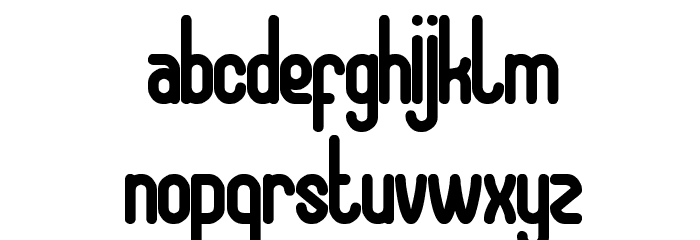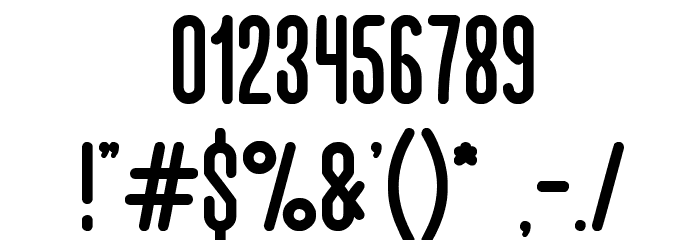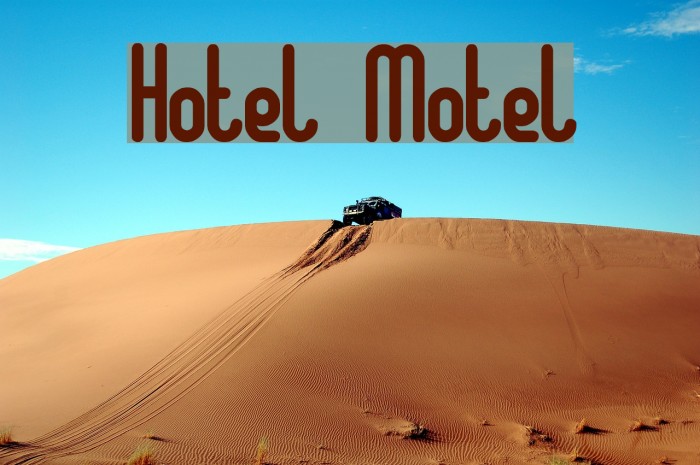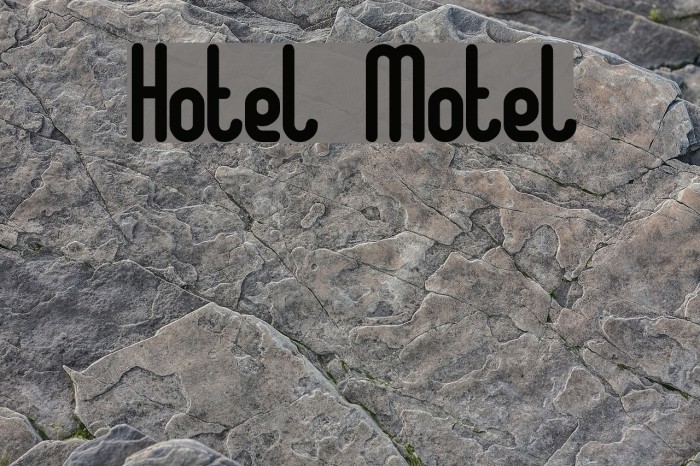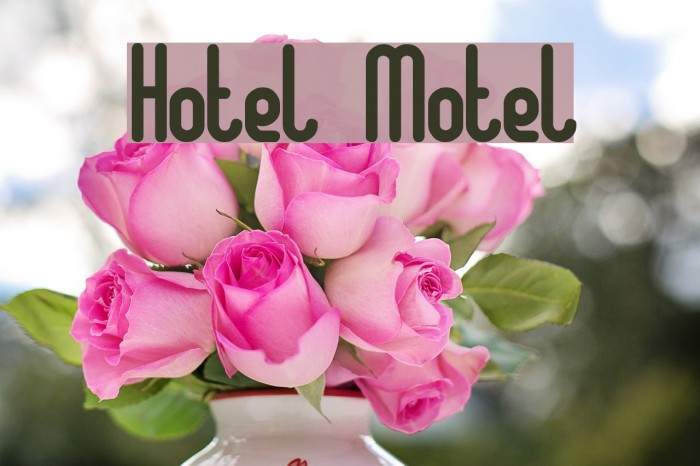
Hotel Motel Font
This font features a bold, rounded style with a modern and playful aesthetic. The characters are uniformly thick, giving it a strong presence, while the rounded edges soften the overall look, making it approachable and friendly. The uppercase and lowercase letters maintain a consistent design, with a slight variation in height and width that adds a touch of uniqueness. The numerals and special characters follow the same rounded, bold style, ensuring a cohesive appearance across all glyphs. This font's design is both eye-catching and versatile, suitable for a variety of creative applications.
A bold, rounded font with a modern and playful aesthetic.
- Proposed Projects: Ideal for branding, signage, posters, and packaging where a friendly and modern look is desired.